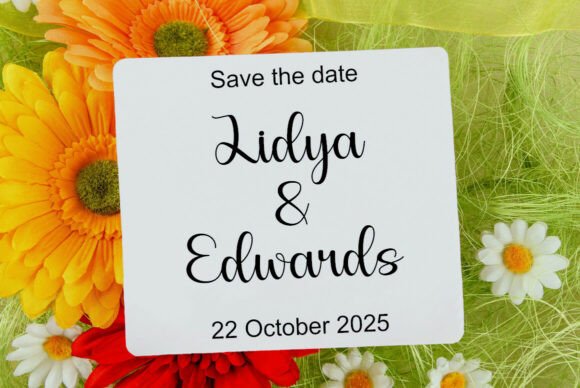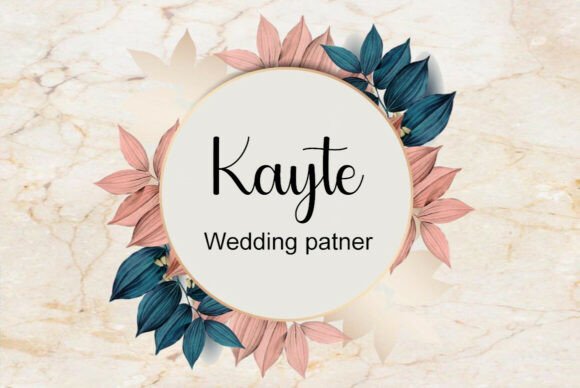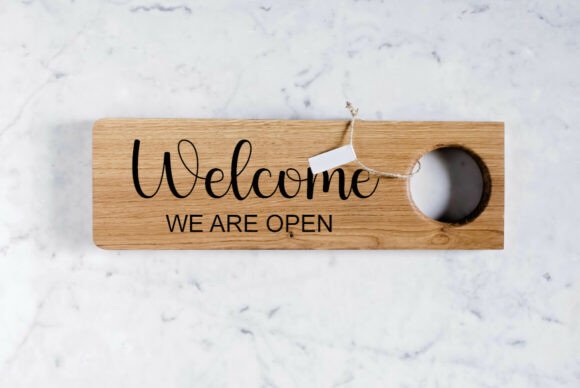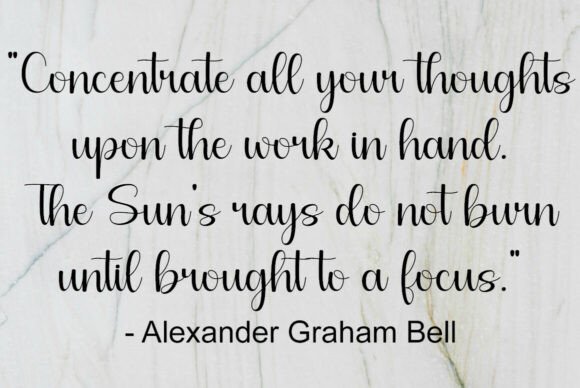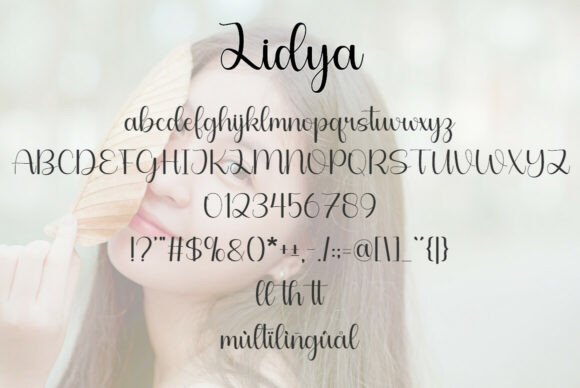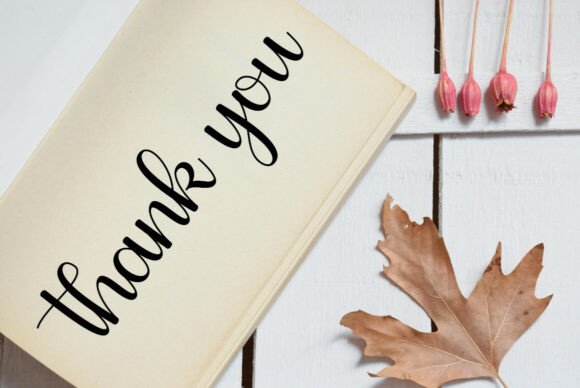
Introduction to Lidya Font
Lidya is a stylish script font that exudes artistic flair and contemporary elegance.
Featuring fluid brush strokes, dynamic curves, and expressive letterforms, it captures the essence of hand-painted calligraphy with a modern twist Ideal for logos, invitations, packaging, and social media graphics, it adds a creative and sophisticated touch to any design.